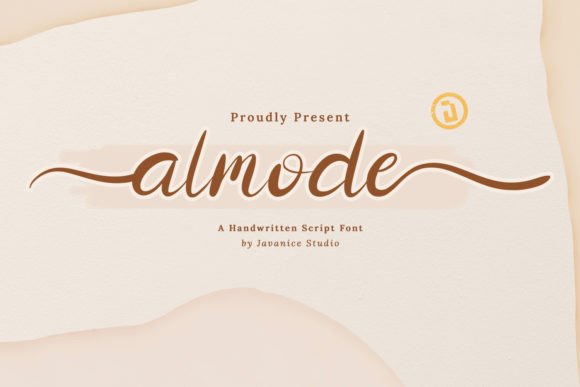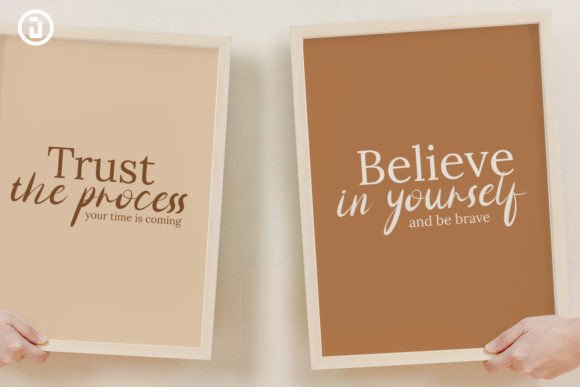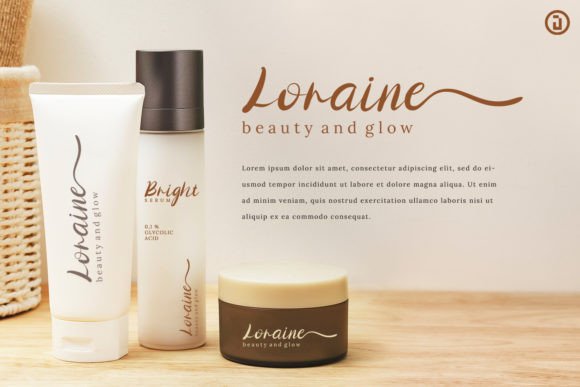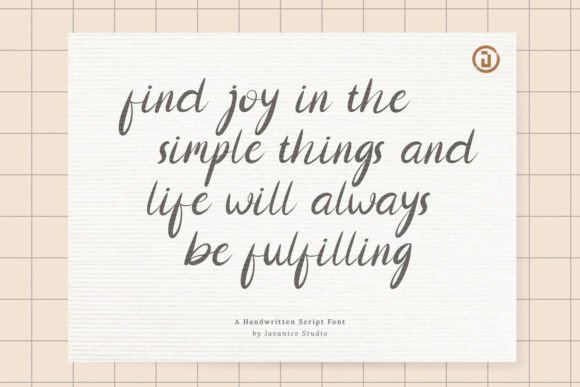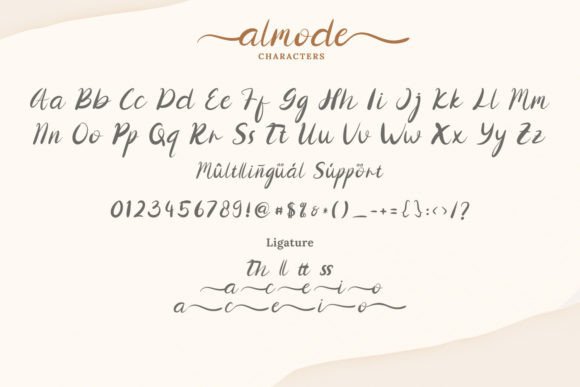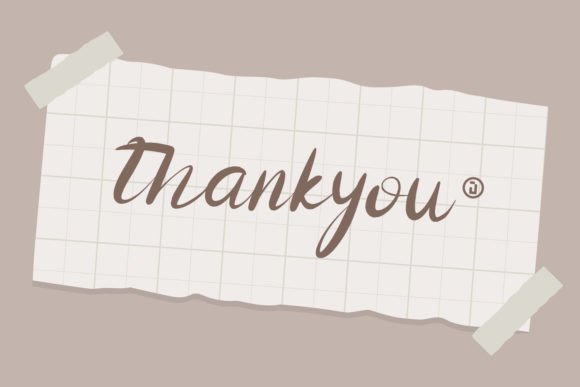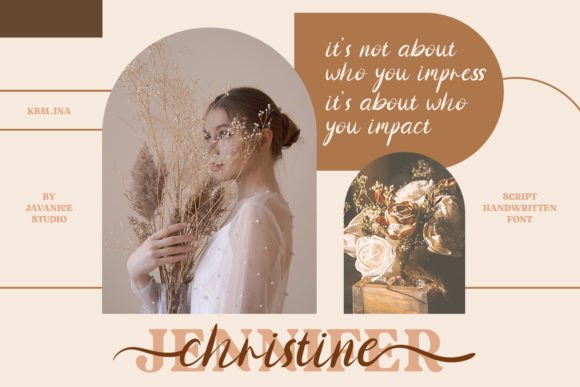
Almode Font
About Almode Font
Almode is an exquisite handwritten font that radiates elegance and charm, making it an ideal choice for a wide spectrum of creative applications. With its timeless style and versatility, Almode can elevate various design projects, adding a touch of sophistication and personality to each endeavor.
For branding projects, Almode is a standout option. Its graceful and handwritten appearance can imbue brands with a sense of refinement and uniqueness, allowing them to make a lasting impression on their audience. Whether used in logos, visual identities, or marketing collateral, this font exudes an air of sophistication.
In the realm of apparel, Almode can transform clothing designs into statements of sophistication and class. It lends a touch of luxury to labels and tags, elevating them from mere identifiers to symbols of style and elegance. In magazines and books, the font’s elegant script can make content appear more polished and visually pleasing.
Greeting cards and wedding invitations acquire a touch of timeless beauty with Almode. Its handwritten style imparts warmth and character to these heartfelt messages, ensuring they leave a lasting impression. In packaging design, this font can bestow an aura of luxury and exclusivity on products, making them all the more enticing to consumers.
In the fashion and makeup industries, Almode can enhance product presentations and marketing materials, projecting a sophisticated and inviting brand image. Stationery items adorned with this font acquire an air of sophistication, making them suitable for personal use or as elegant gifts.
Almode’s versatility extends to various advertising purposes, where it can infuse promotional materials with an air of refinement. Whether for print or digital media, this font can captivate attention and convey messages with a touch of grace and elegance.
In summary, Almode is not just a font; it’s a creative instrument that brings elegance and sophistication to a wide range of design projects. Its ability to seamlessly merge sophistication with versatility makes it an invaluable asset for designers across different creative domains. Whether you’re working on branding, apparel, packaging, or stationery, Almode is your partner in adding a touch of timeless beauty to your designs.